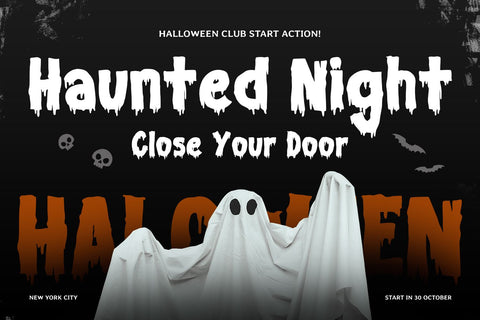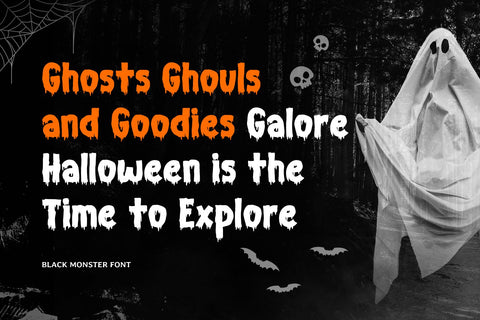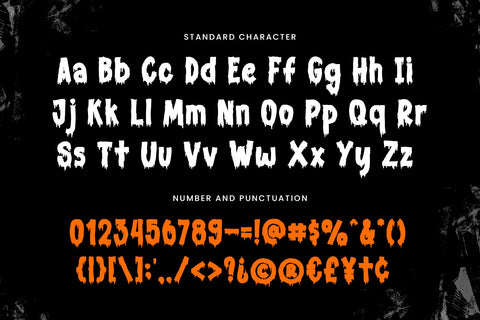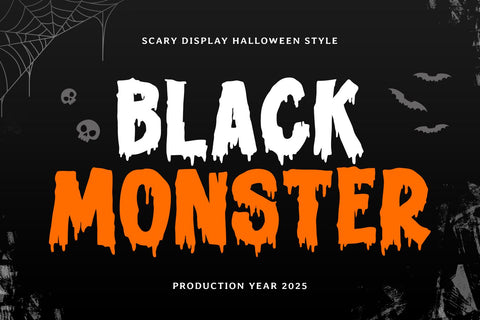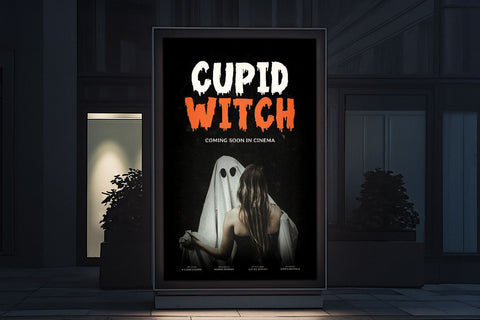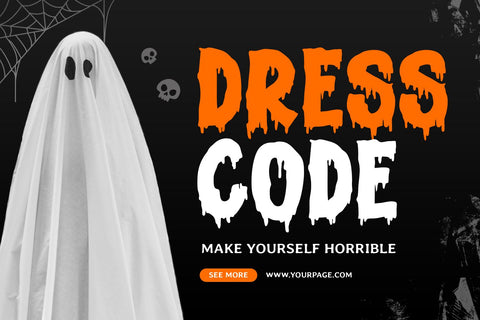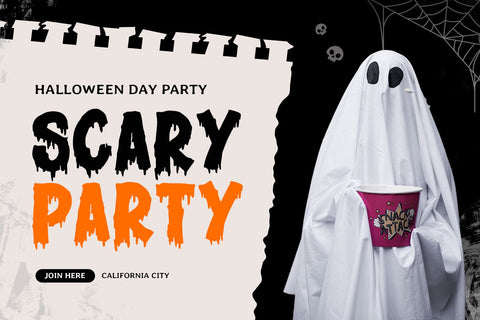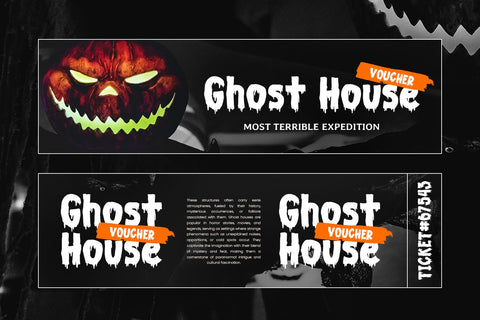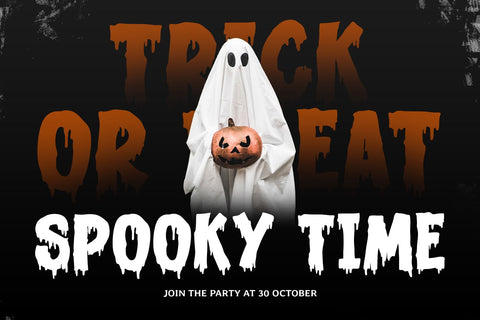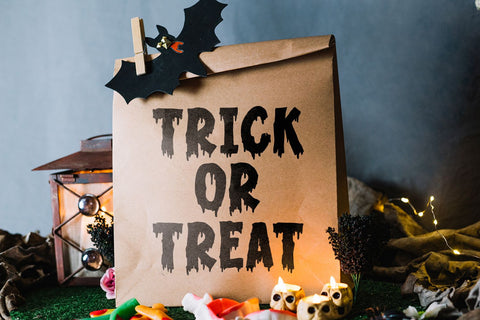
BLACK MONSTER - Halloween Font
The "BLACK MONSTER" font is a daring and menacing display typeface that embodies the essence of Halloween horror. With bold, angular letterforms and sharp, beastly edges, this font is designed to evoke a sense of terror and dark energy. It’s perfect for projects that aim to capture the raw, spine-tingling atmosphere of October’s eerie nights, from haunted house signs to horror-themed event posters.
With its decorative, monstrous features, "BLACK MONSTER" brings a fierce, shadowy presence to your designs. The font's heavy structure and ominous details create an impactful visual that grabs attention and sets the tone for fear and excitement. Whether you’re planning a spooky movie marathon or a monster-themed party, this font brings an unmistakable horror touch to your Halloween creations.